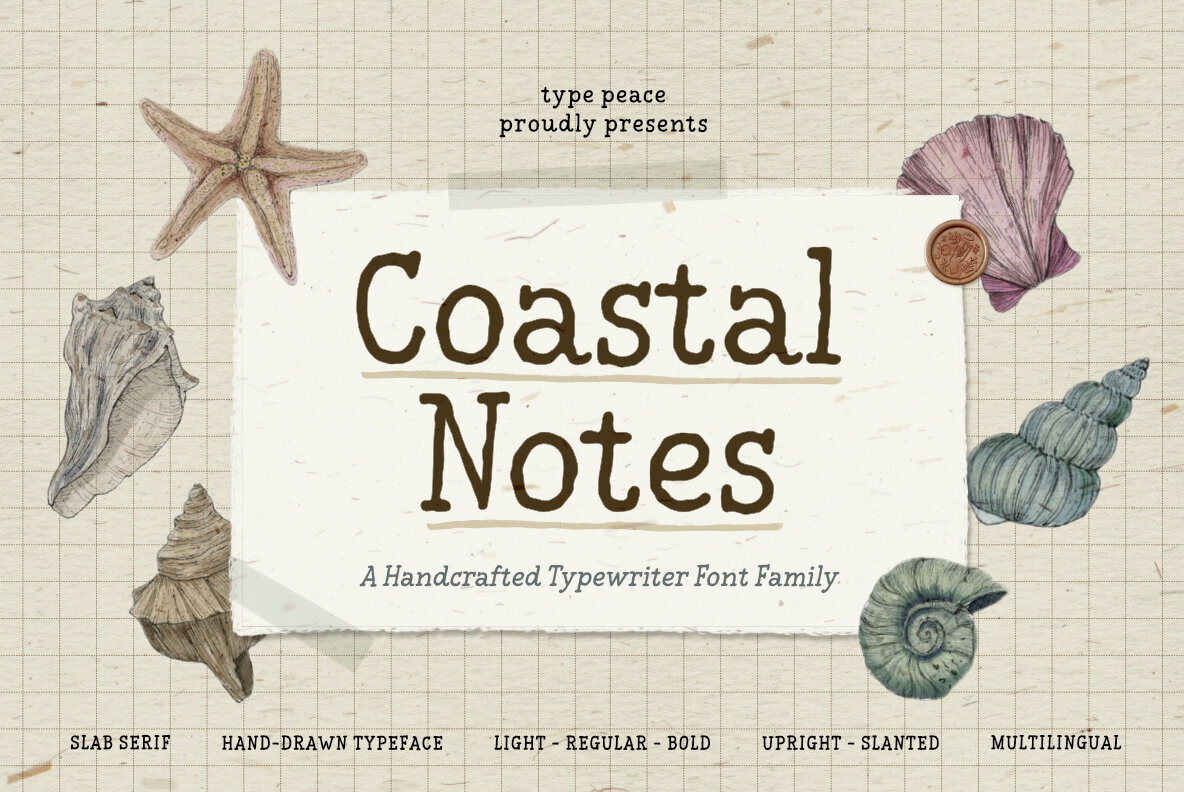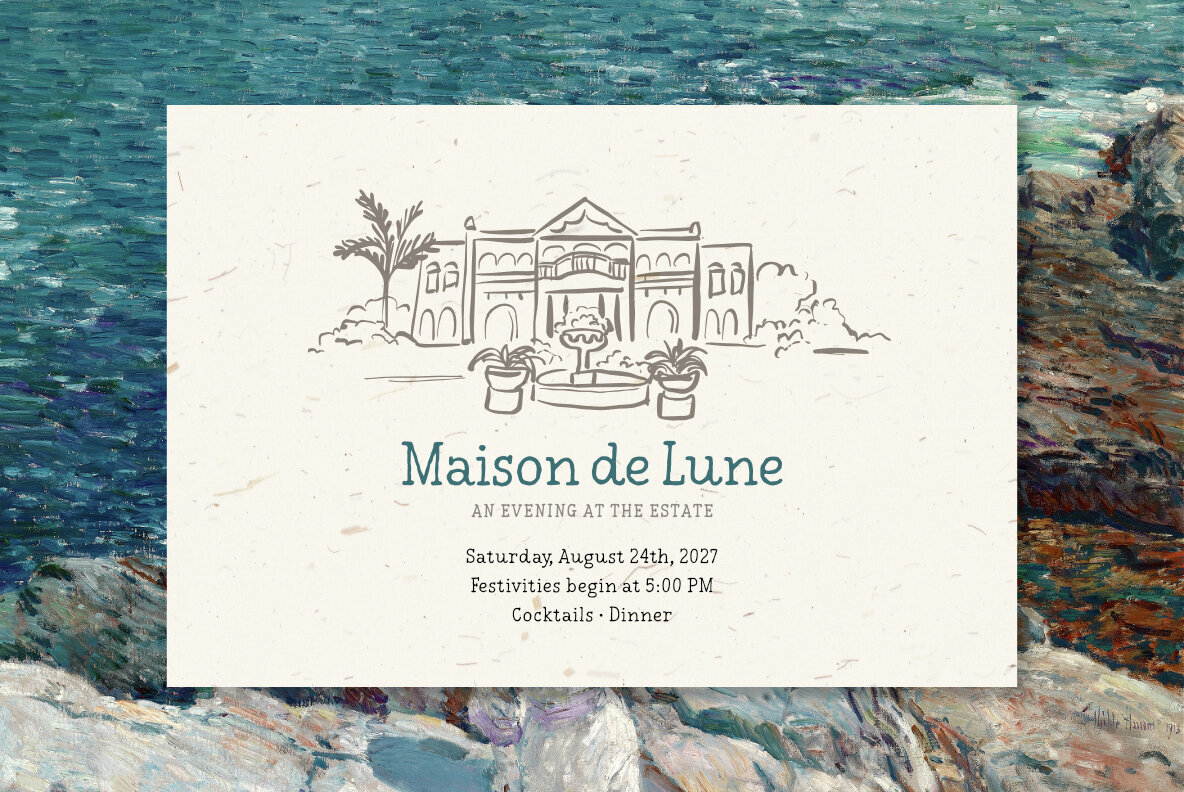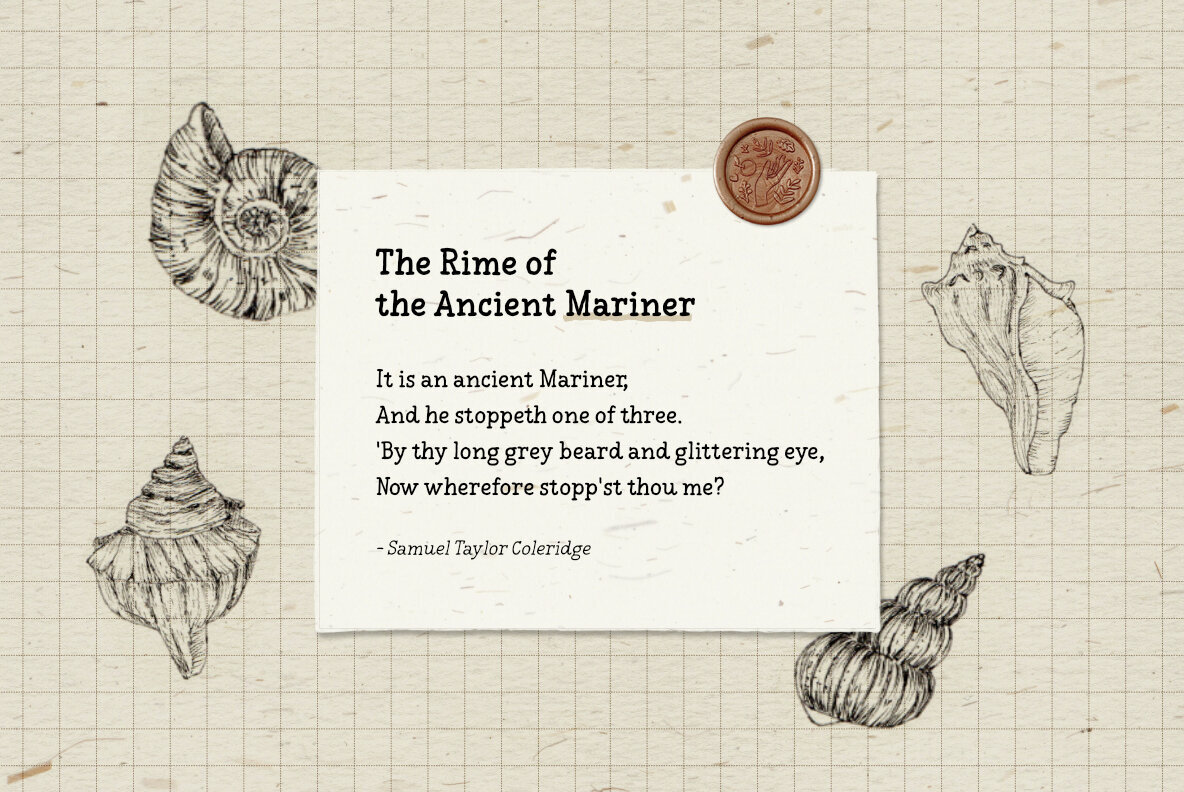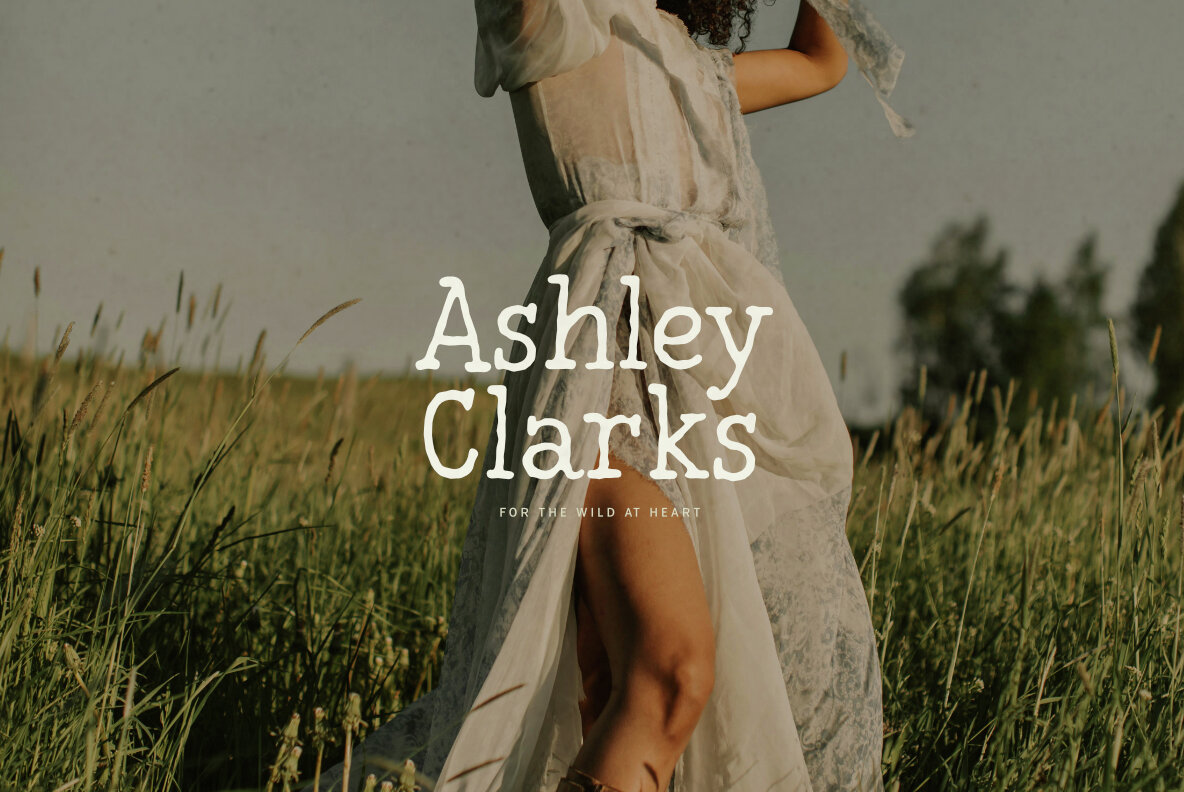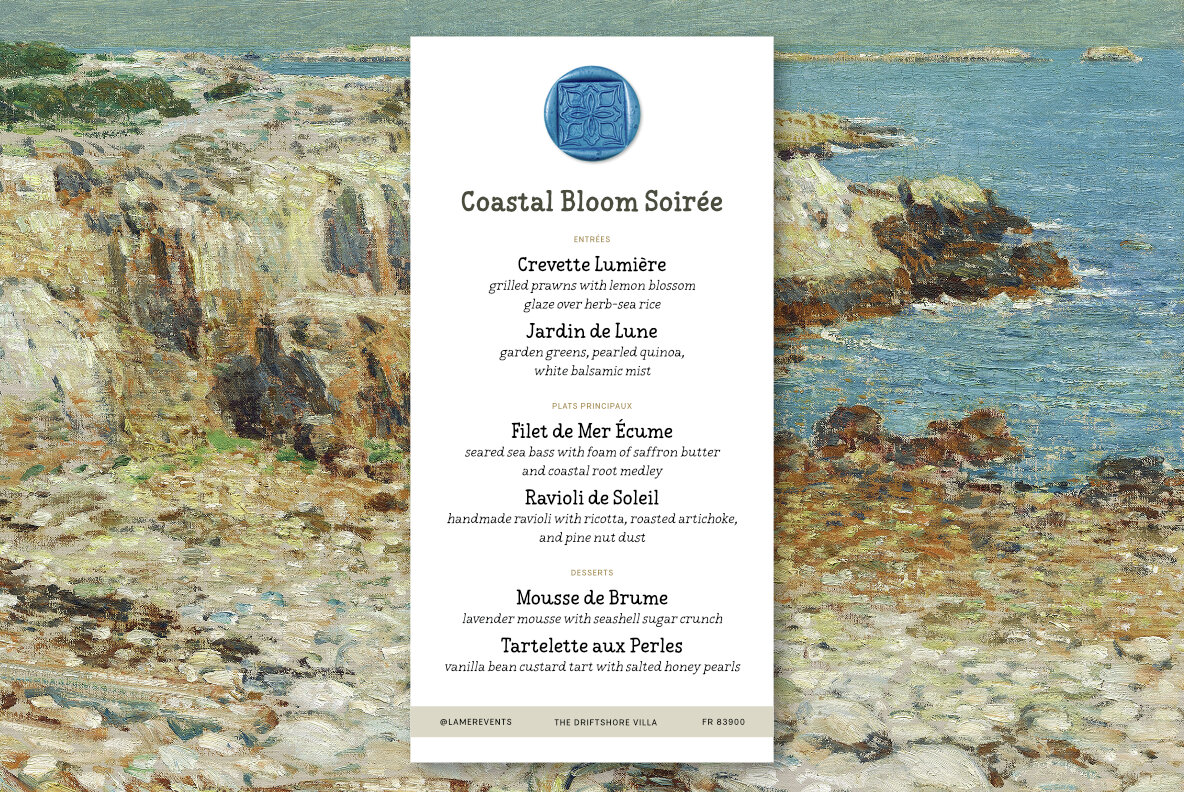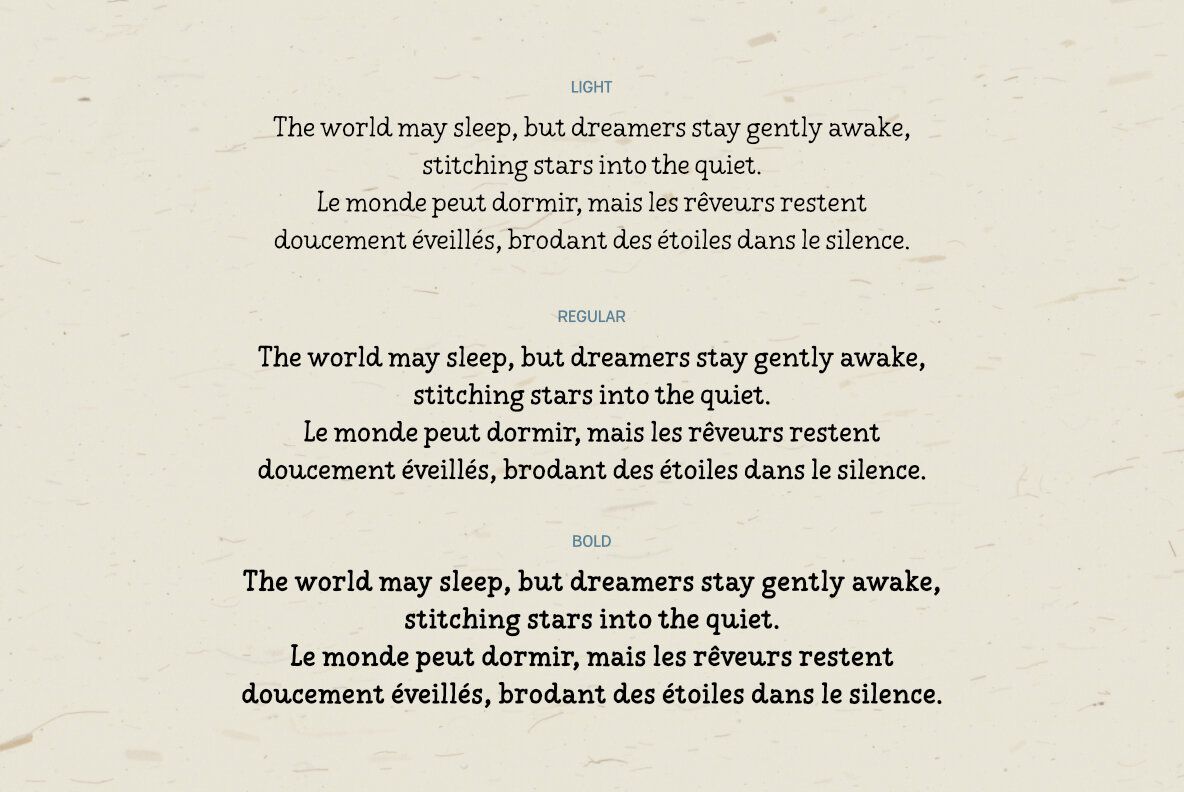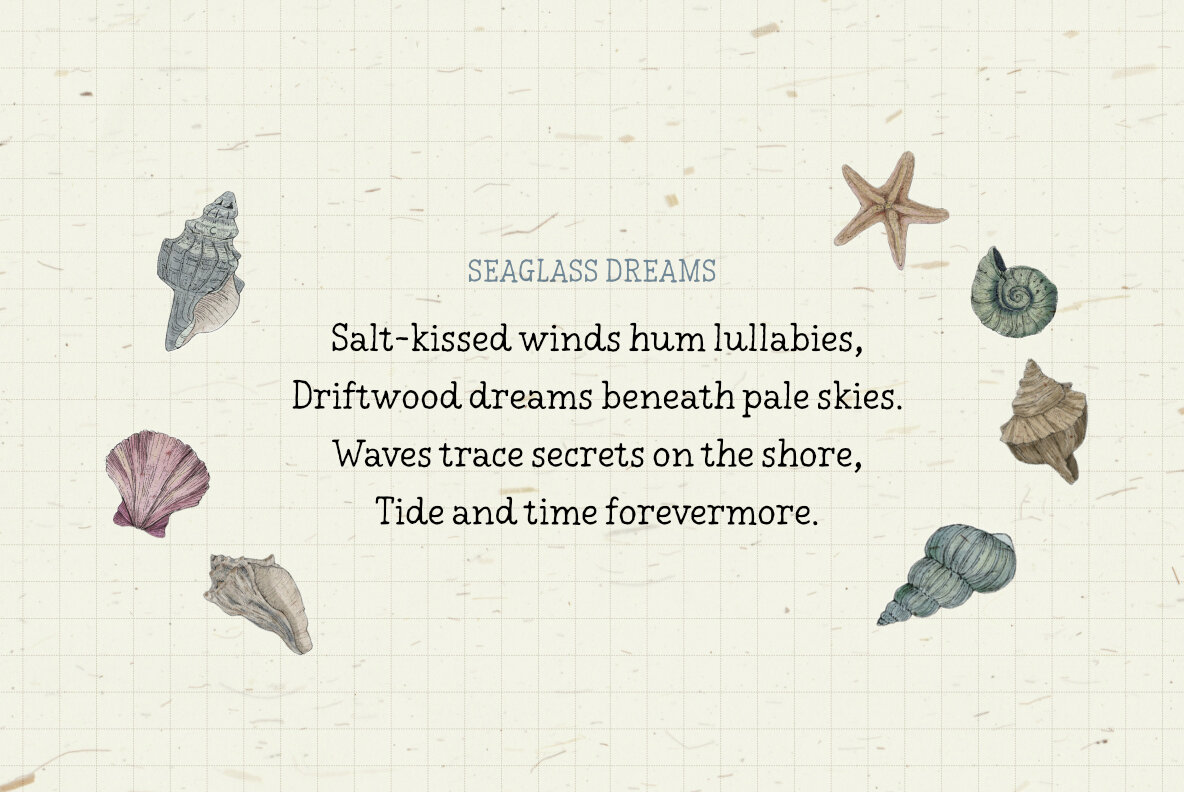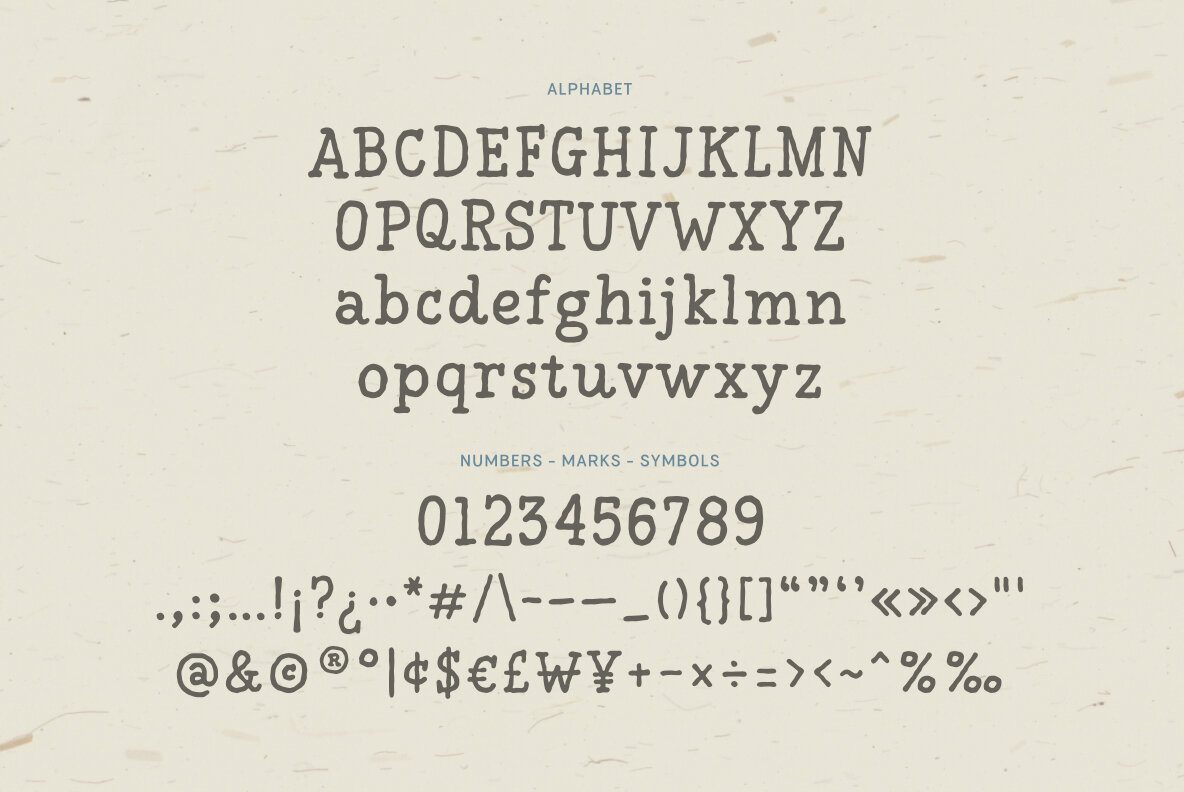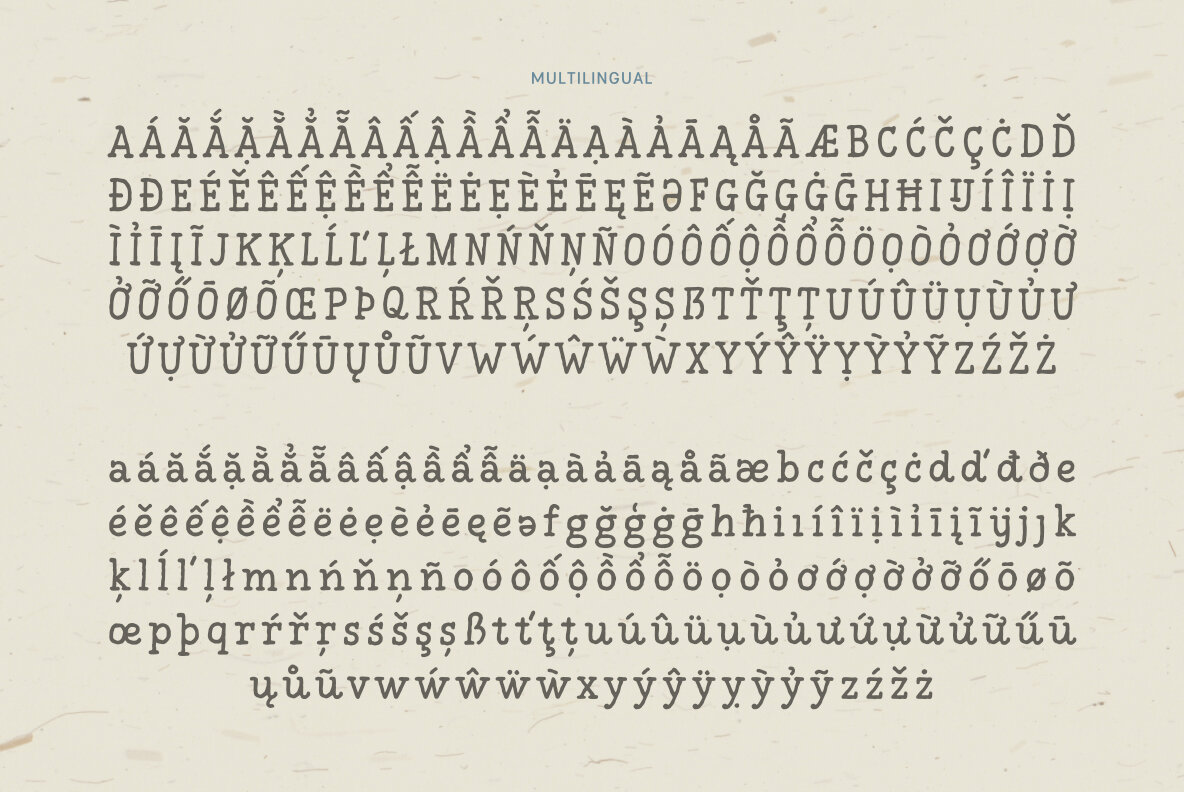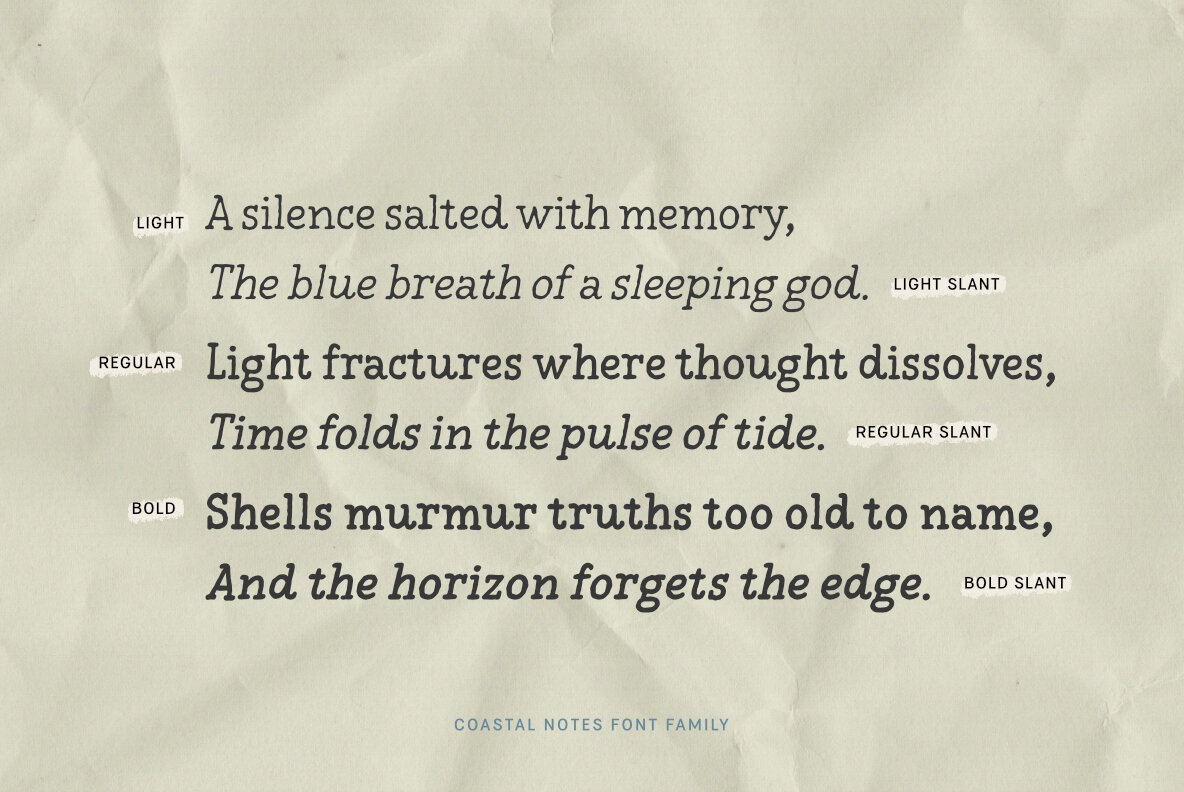
Coastal Notes Font
Coastal Notes is a hand-drawn slab serif font family that captures the enduring allure of vintage typewriters. With six distinctive styles—Light, Regular, and Bold in both Upright and Slanted versions—this collection lends organic texture and individuality to your designs. The natural roughness and slight irregularities of Coastal Notes mimic the look of ink on paper, offering a perfect choice for projects that seek warmth, personality, and authenticity. Script: Latin Supported Languages: English, Western European, Central European, South Eastern European, Oceanian, VietnameseCoastal Notes: Vintage Typewriter-Inspired Serif